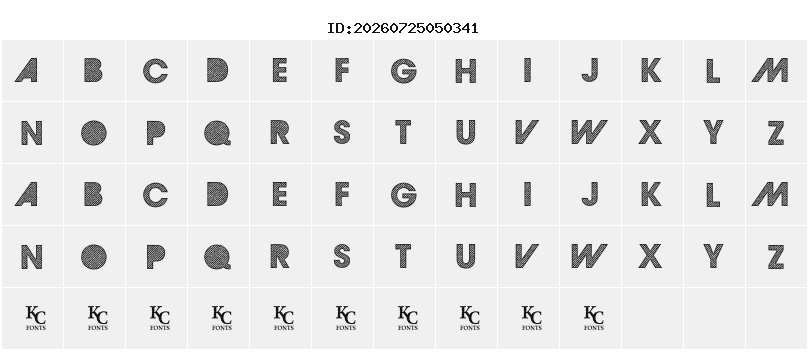
• Font Name: GoodMorningAfternoon
• Designer: Kevin Christopher
About GoodMorningAfternoon.ttf
GoodMorningAfternoon.ttf is a modern, elegant sans-serif font designed for ultimate readability and visual harmony. Perfect for branding, headlines, web design, and print materials.